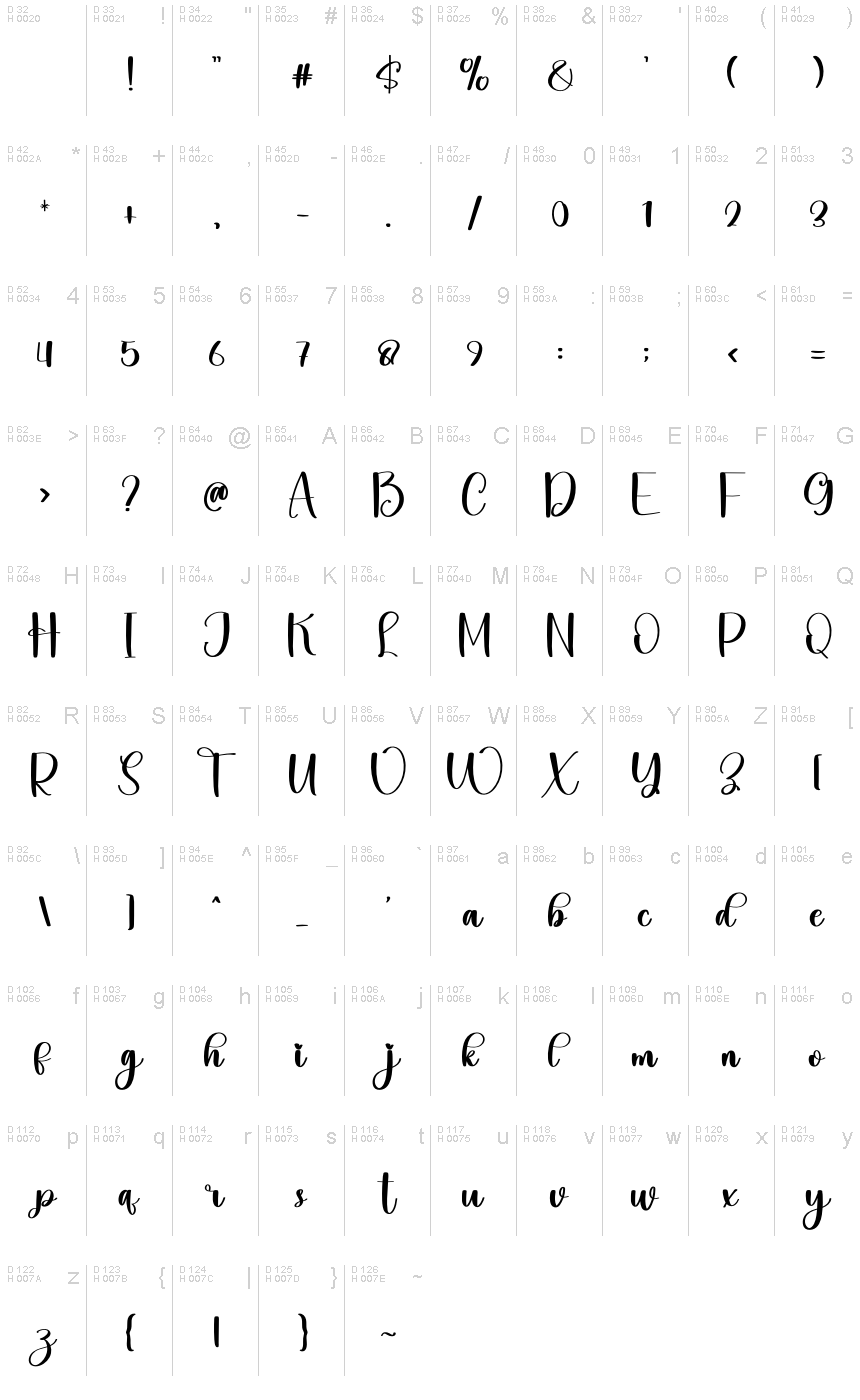
Smarth
Smarth, a creation of Inermedia Studio, exudes a personal touch with its handwritten style that stands out for its fluidity and elegance. Each character flows into the next with an effortless grace, suggesting a sense of casual sophistication. The font's natural curves and swirls evoke the charm of bespoke calligraphy, making it perfect for projects that require an intimate and artisanal feel.
Ideal for invitations, branding, and advertising that aim to convey warmth and personality, Smarth's inviting aesthetic sets a friendly tone. Its distinctive style ensures that any text will capture attention while remaining clear and readable – a harmonious balance for designers seeking to add a human touch to their work.